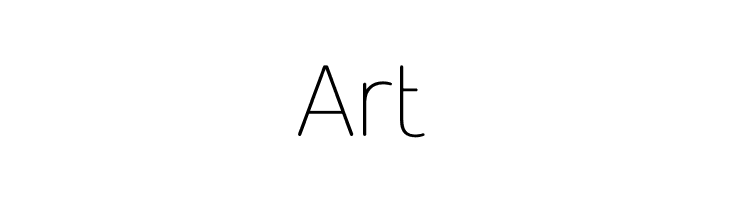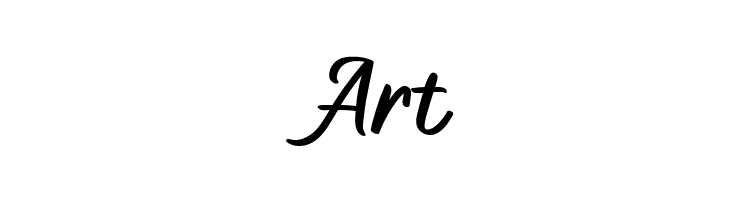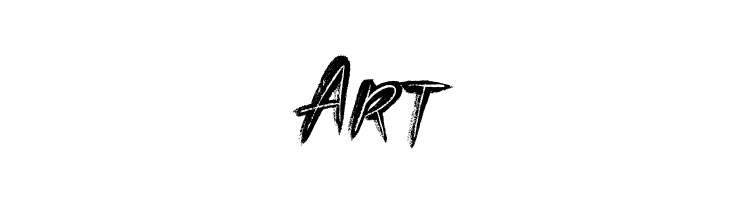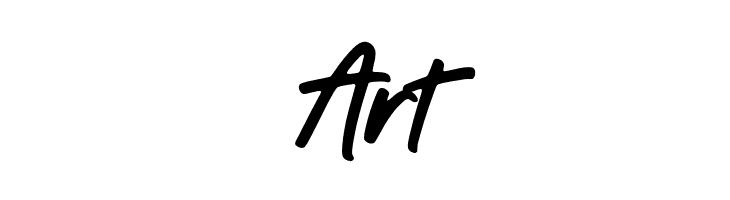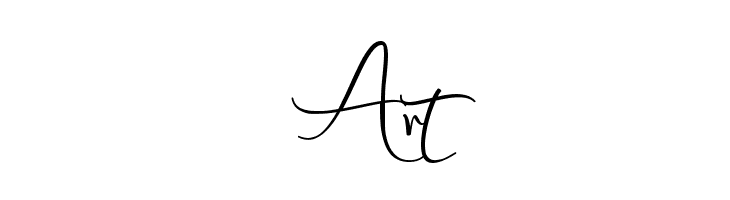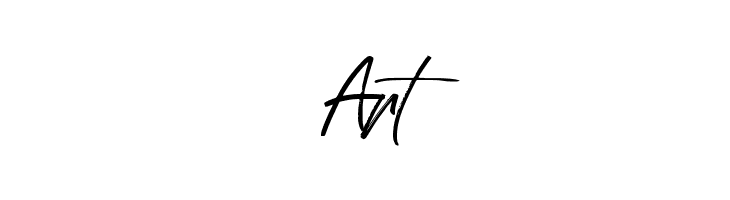
A bold, modern script font with interconnected characters and a fluid, elegant style.
A modern, geometric sans-serif font with thin, consistent lines and balanced spacing.
A playful, flowing script font with smooth, cursive letterforms.
A lively and elegant script font with fluid, connected letterforms.
A bold, energetic brush script font with dynamic, expressive strokes.
An elegant and sophisticated cursive script with flowing, connected characters.
A bold, energetic handwritten font with fluid strokes and a casual style.
A cursive, handwritten font with elegant, flowing lines and ornate details.
A bold, expressive script font with elegant, flowing letterforms.
A fluid and elegant script font with a handwritten style.